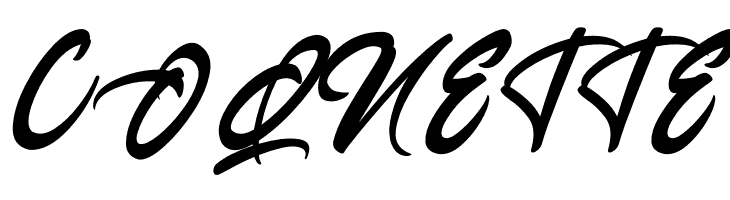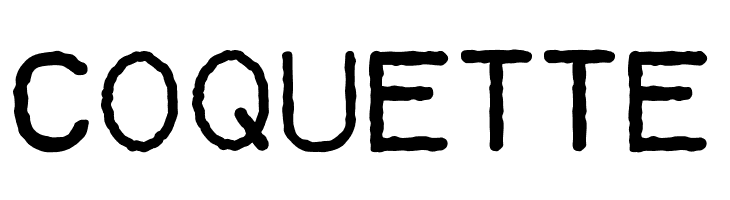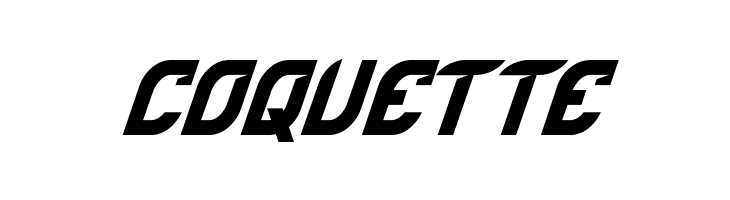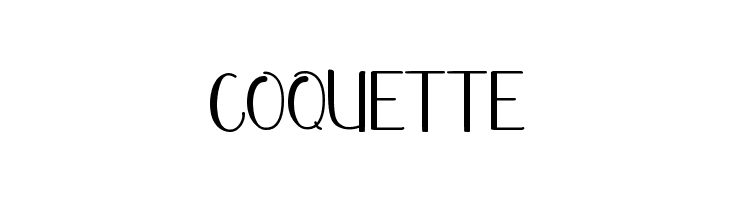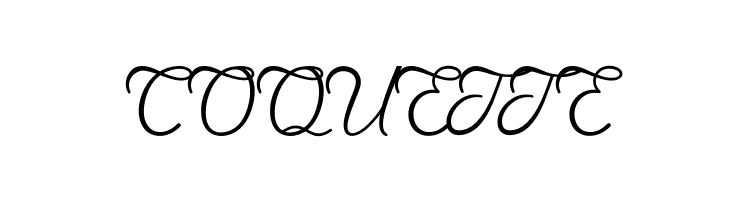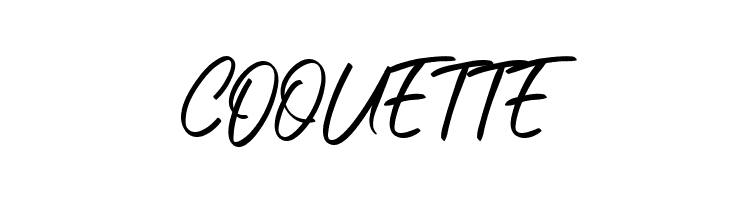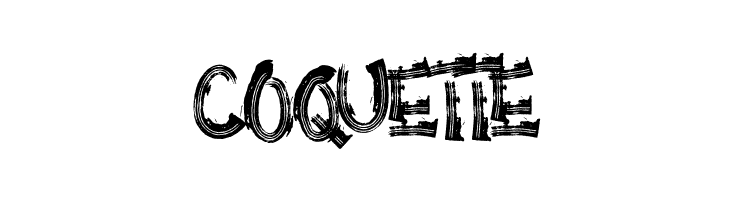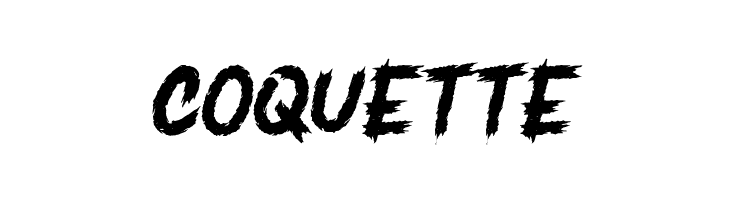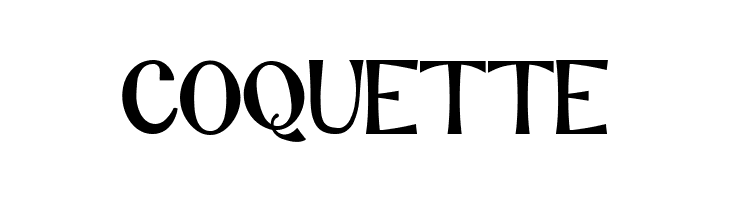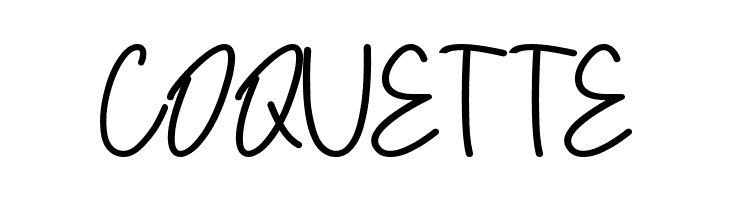
A playful, cursive script font with elegant loops and swirls.
An elegant script font with fluid, cursive strokes and a classic charm.
A stylish and elegant handwritten script font with fluid, cursive letterforms.
A rebellious, hand-drawn font with jagged, dynamic strokes.
A chaotic, abstract font with fragmented and distorted letterforms.
A chaotic and abstract font with bold, fragmented letterforms.
A bold, distressed font with a grunge, rebellious style.
A bold, brushstroke font with a rebellious and chaotic style.
A bold, jagged font with a rebellious, energetic vibe.
A rough, hand-drawn font with an edgy, rebellious style.
A bold, expressive script font with high contrast and fluid letterforms.
A vintage, typewriter-inspired font with a distressed, nostalgic look.
A dynamic and expressive handwritten script font.
A playful, handwritten script font with interconnected characters.
A cursive, handwritten-style font with a flowing and elegant appearance.
A playful, casual handwritten font with fluid strokes and a friendly appearance.
A fluid and elegant script font with dynamic, cursive letterforms.
Elegant cursive script font with modern flair.
An elegant script font with flowing, interconnected letters and intricate flourishes.
An elegant script font with flowing, interconnected letters and ornate flourishes.
A sophisticated handwritten font with elegant, flowing lines and a dynamic slant.
A bold, geometric font with calligraphic influences, perfect for creative and modern designs.
A bold, geometric font with sharp edges and a modern-traditional blend.
A bold, italicized font with dynamic slant and angular design.
A dynamic italic font with sharp serifs and a modern, artistic style.
A playful and whimsical font with tall, narrow letterforms and dynamic strokes.
A playful, whimsical font with tall, narrow letters and a modern artistic flair.
An ornate and decorative font with intricate curls and swirls.
A whimsical and playful font with dynamic character shapes.
A bold, expressive handwritten font with dynamic strokes and playful elegance.
A bold, expressive script font with a hand-painted, brush-like style.
A bold, italicized font with a dynamic, modern style.
A bold, artistic font with dynamic, hand-drawn strokes and a unique flair.
A bold, brush-style font with sharp, dynamic strokes and a hand-painted appearance.
A bold, playful font with a nautical theme and rounded, flowing characters.